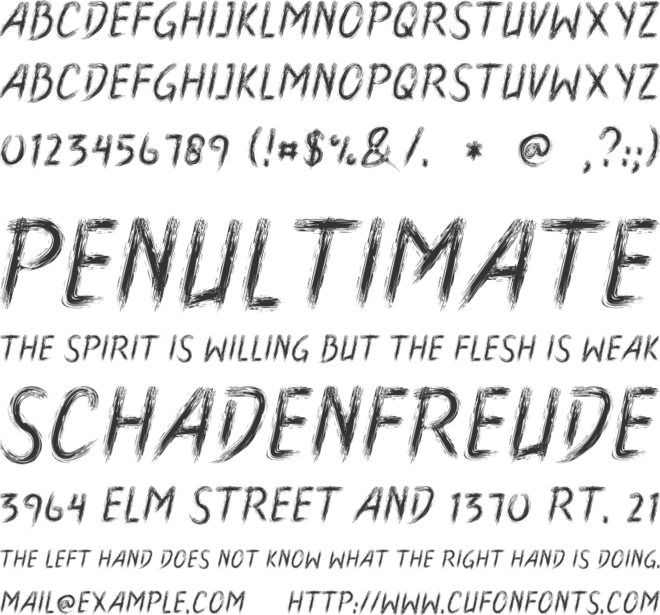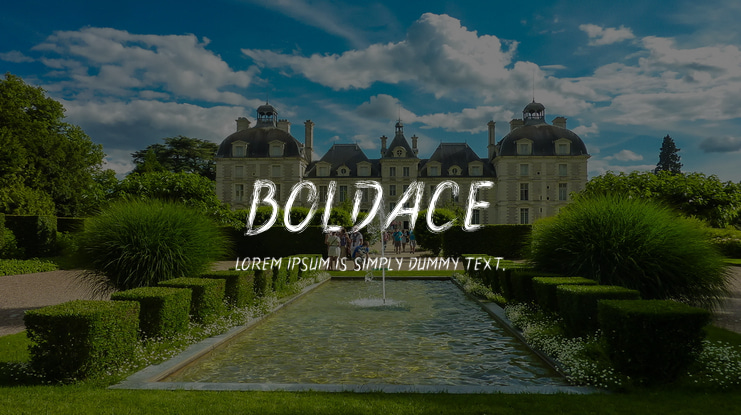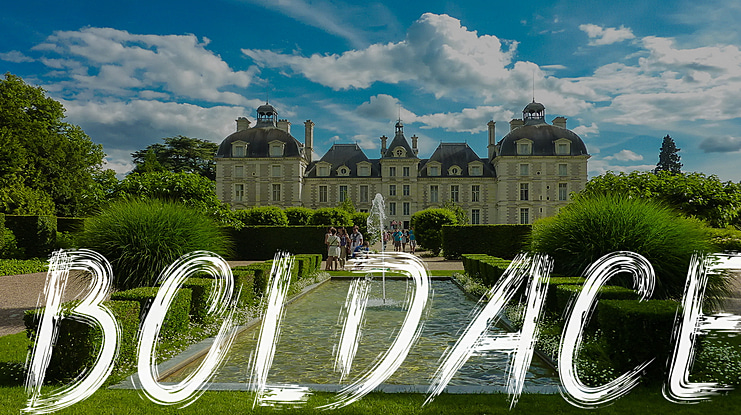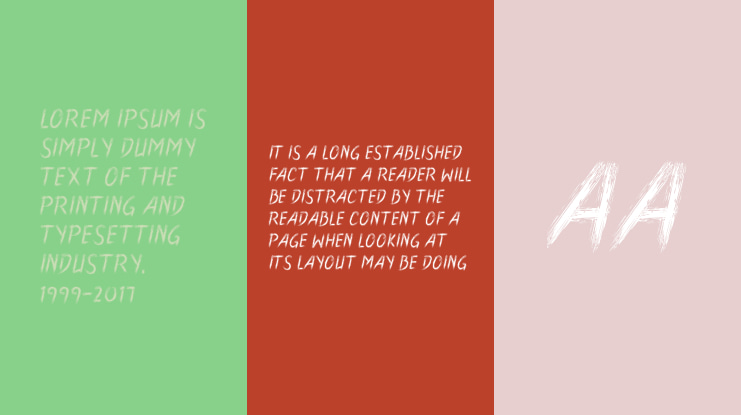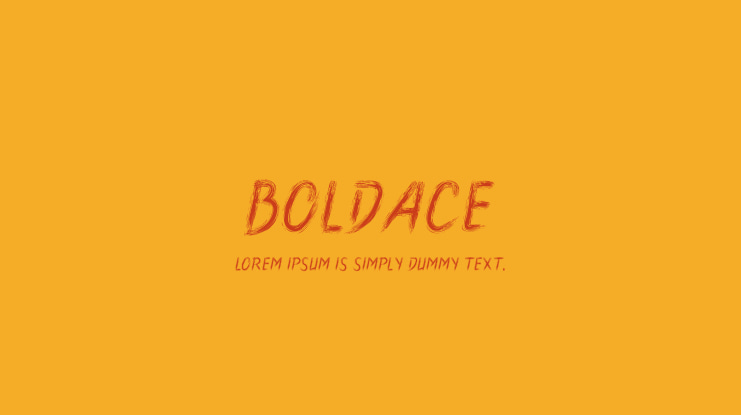
Boldace Font
A strong brush font carefully made from scratch, all glyph are in unique uppercase style. Large and very attractive brush display font view, with a little rough style.